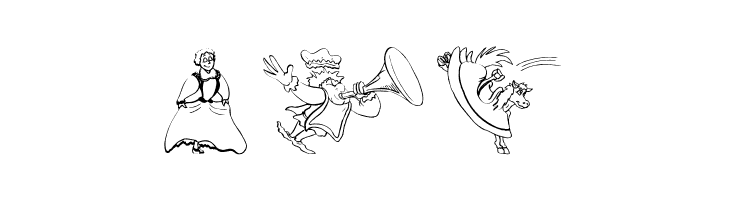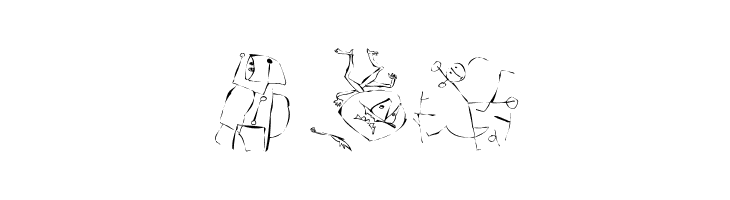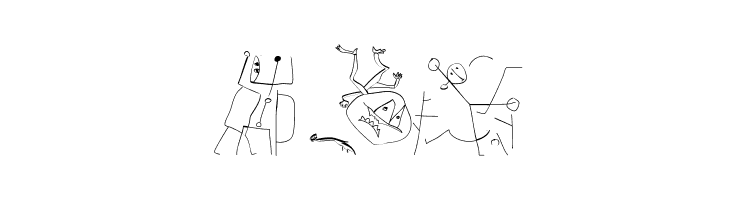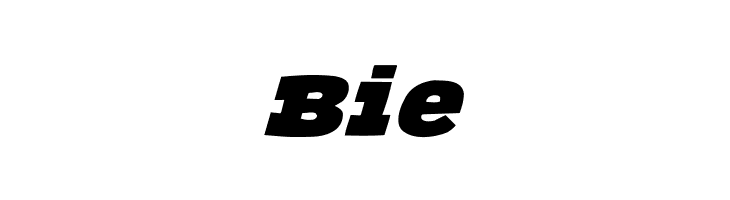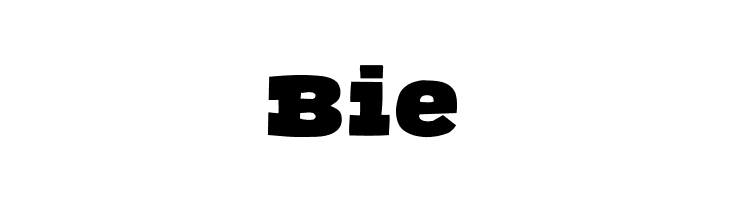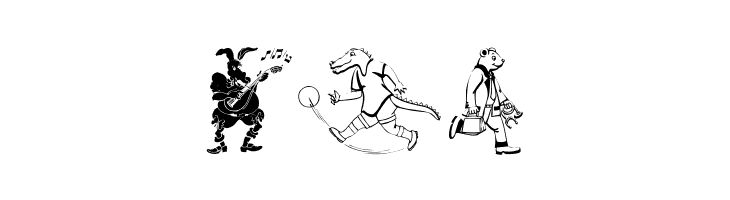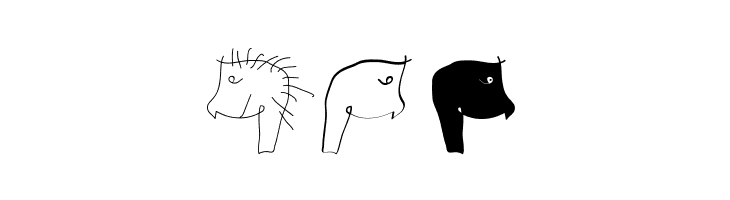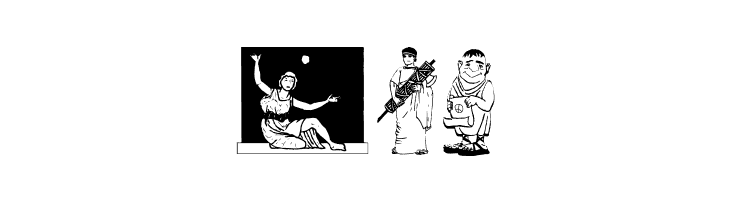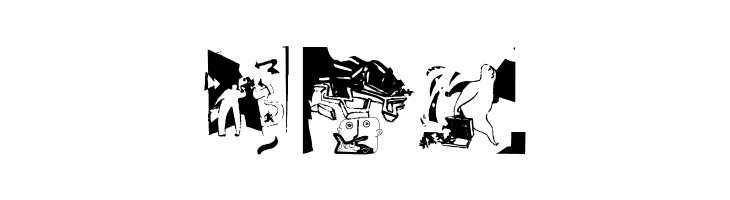
• RenaissancePeople
A whimsical, cartoon-style decorative font with Renaissance-themed characters.
• KleeriKaleRRound
An artistic and whimsical decorative font with abstract character designs.
• Kleerikale
An abstract, artistic font with whimsical, illustrative characters.
• TheHammerSlabserif-Oblique
A bold, oblique slab serif font with strong, dynamic strokes.
• TheHammerSlabserif
A bold slab serif font with strong, block-like serifs and a vintage-modern appeal.
• RealllyAnimalishOne
Cartoonish animal illustrations form each character in a playful, decorative style.
• Krizzeleyn
The image contains abstract illustrations, not a valid font.
• ClassicoAntiqua
Illustrative dingbat font with classical antiquity themes.
• Expressiones
An artistic and illustrative font with each character depicted as a unique scene or character.
• AntikAlphaBeta-Bold
A bold, hand-drawn font with playful and artistic characteristics.